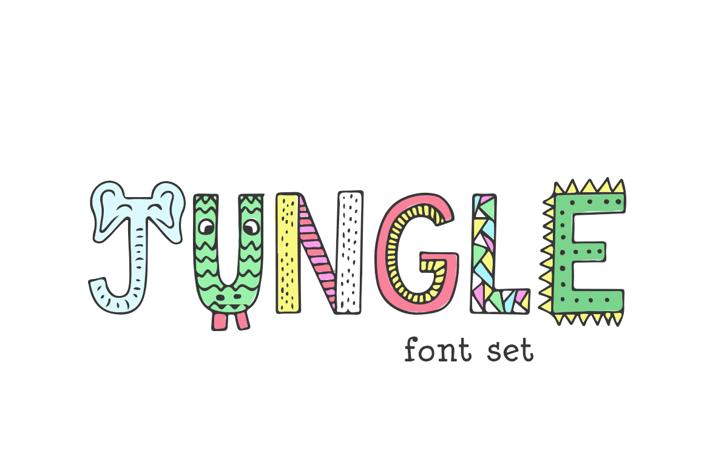
Jungle Font
Meet the Jungle font, full of 52 different creatively created unique characters. Color them in or leave them blank, either way they are super cute!Whats Included